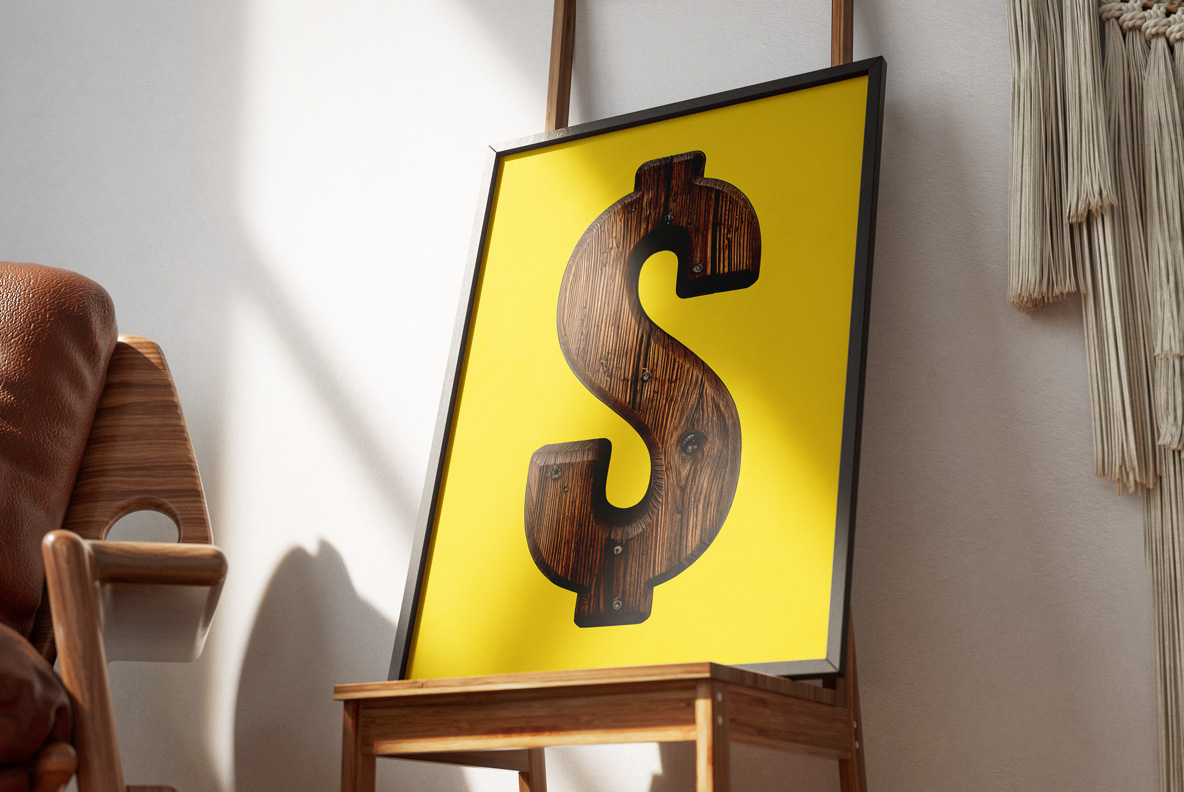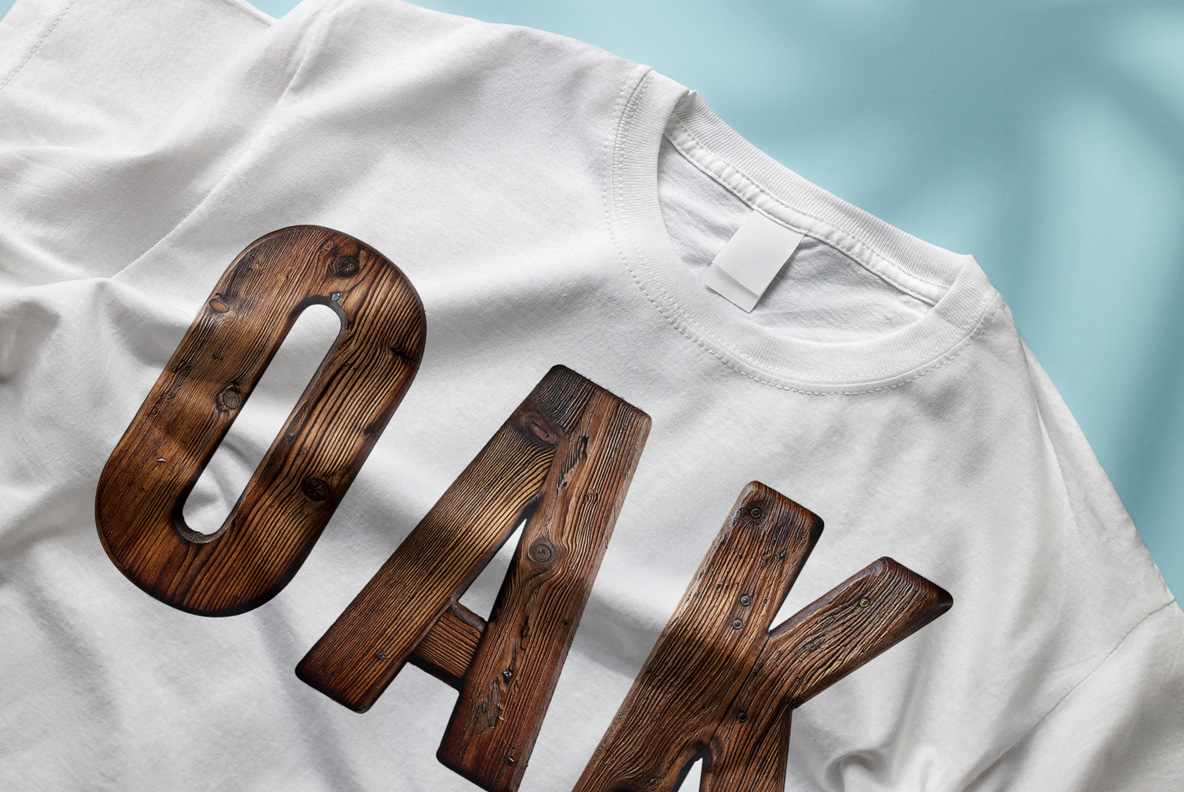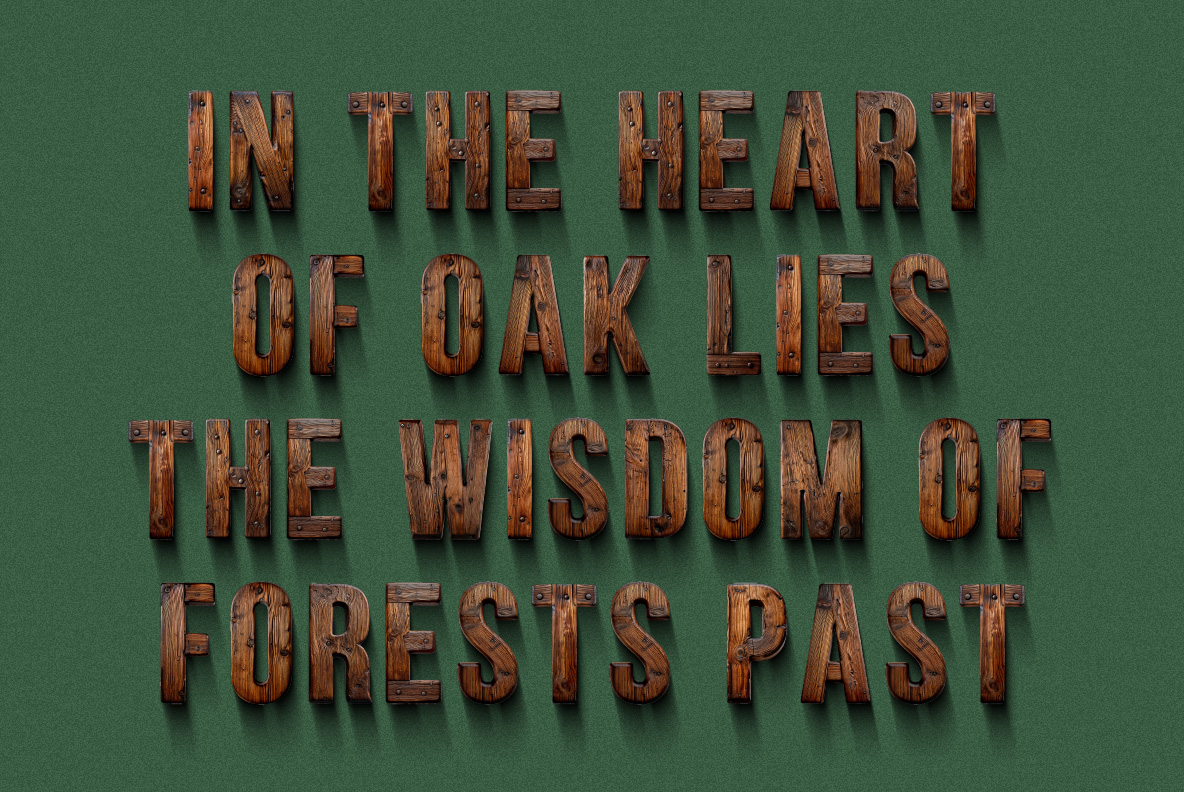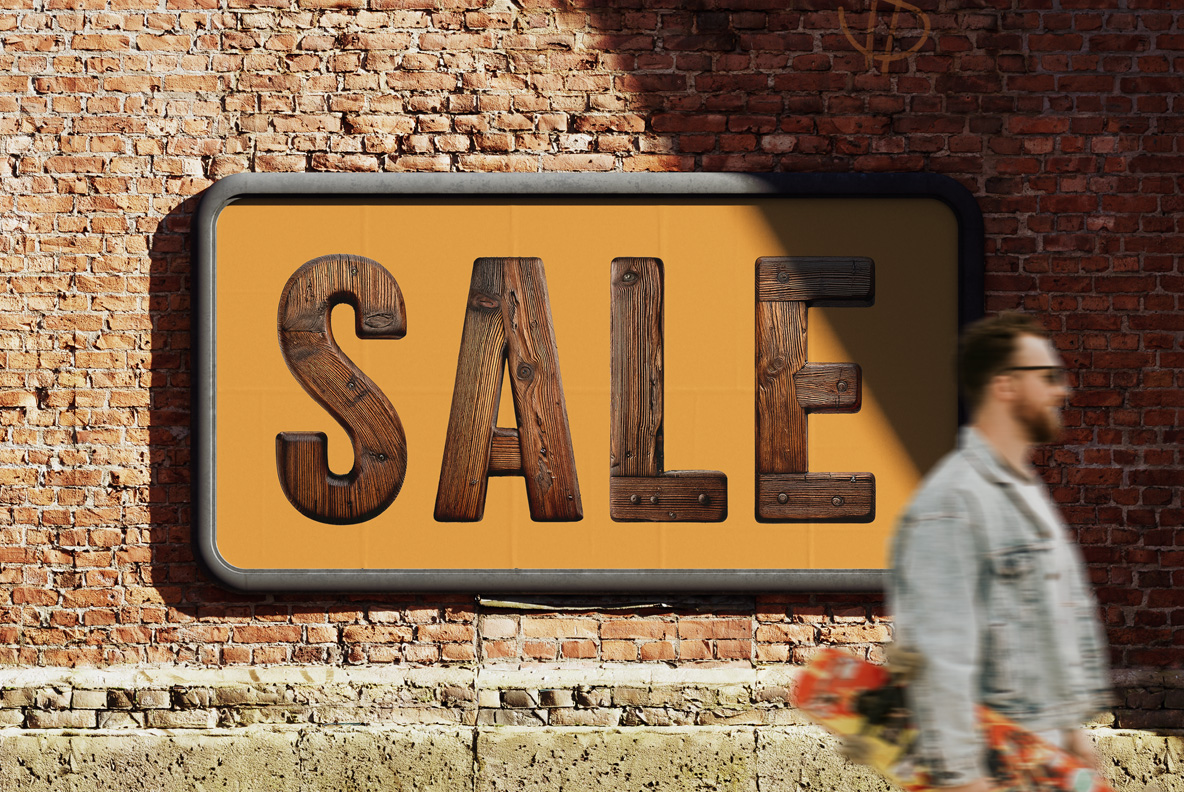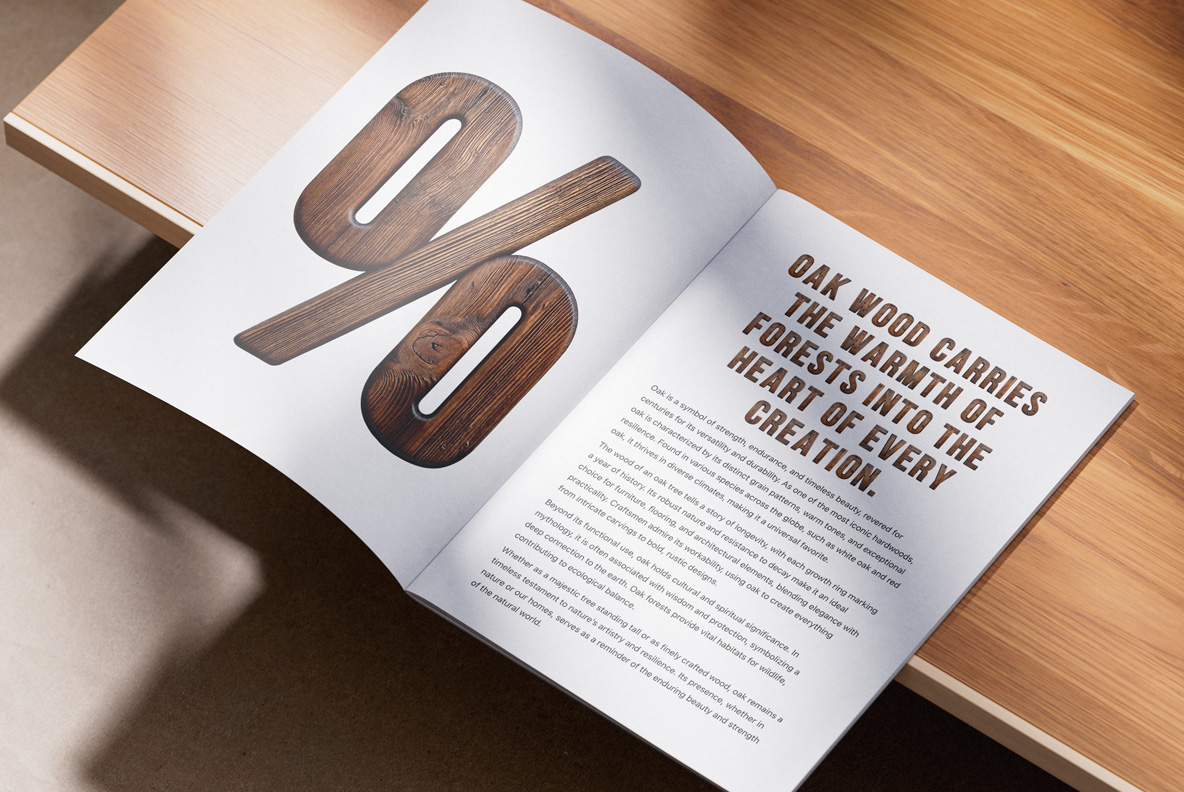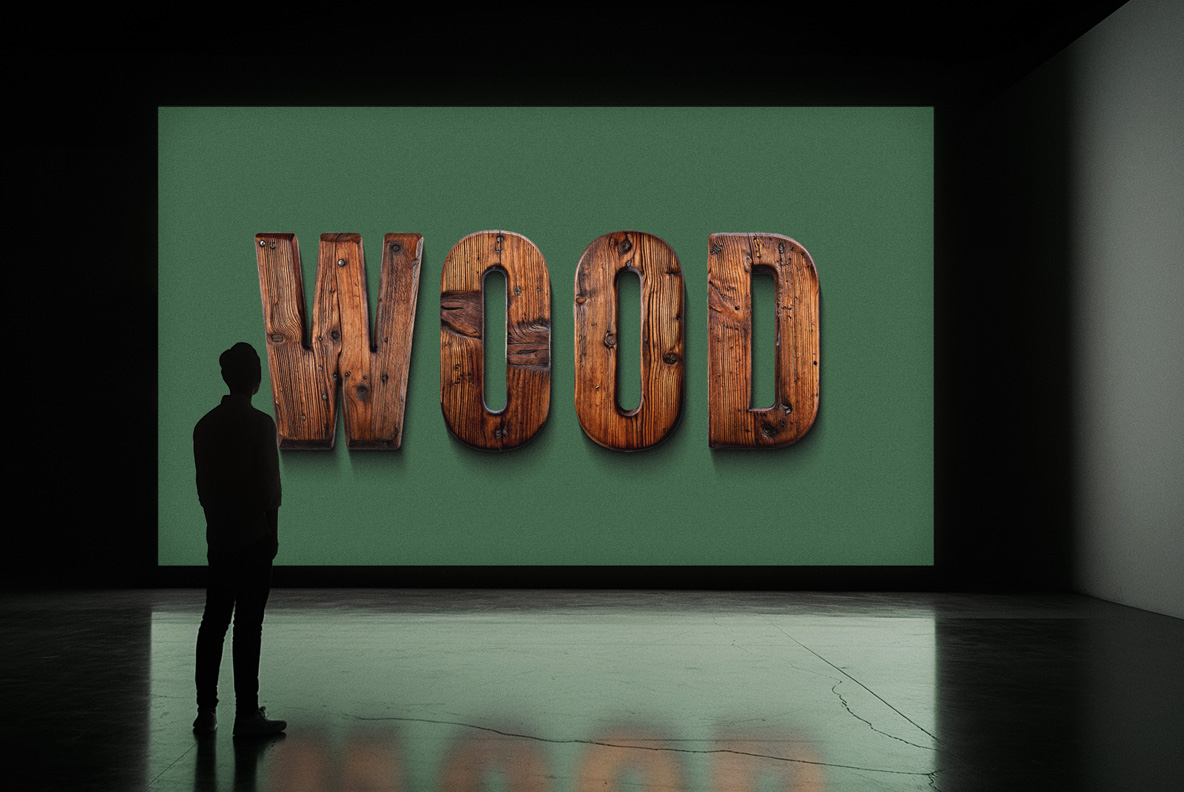
Oakwood Font. Realistic Oak Grain for Rustic Display Typography
Oakwood Font shapes weathered timber into a sturdy display alphabet filled with grain, knots, worn edges, and warm brown tones. It brings natural character to outdoor branding, packaging, restaurant signs, heritage projects, posters, and editorial graphics. The letters look carefully carved rather than digitally polished—and they arrive without covering your desk in sawdust.
When the Grain Becomes Part of the Letter
Oakwood Font builds every character from richly aged timber. Visible rings, knots, small cracks, and uneven color make the alphabet feel collected from a carpenter’s workshop rather than generated by a filter. The substantial shapes remain easy to recognize, while each surface carries its own natural variation. It has the confidence of solid oak and, fortunately, none of the splinters.
Rustic Typography Beyond the Log Cabin
Use Oakwood Font for outdoor brands, craft food packaging, restaurant signage, garden products, heritage events, book covers, adventure posters, and editorial titles. Its warm brown palette pairs naturally with cream, forest green, charcoal, and muted red. Clean supporting type keeps the composition contemporary instead of turning it into a souvenir shop. Explore more timber, bark, branches, and carved surfaces in our Wooden Fonts collection.
Animated Oakwood Font letters built from aged oak planks with visible grain, knots and metal fasteners
Give the Timber Enough Space to Speak
Oakwood Font works best in short, prominent phrases where the texture can be appreciated. Let the letters occupy generous space and avoid adding artificial wood effects—the real grain is already doing the useful work. A restrained layout can feel premium and architectural; rough paper and natural photography push it toward a more handmade mood. For a drier, more weathered interpretation of timber lettering, compare it with Dry Wood Font. Oakwood is the polished old table; Dry Wood is the fence that has stories.
Oakwood Font word FONT made from dark oak planks on a green OpenType product cover
Oakwood Font uppercase alphabet, numbers and punctuation made from aged timber on black
Oakwood Font word OAK printed in dark wooden letters across a white T-shirt
Oakwood Font quote In the Heart of Oak Lies the Wisdom of Forests Past on a green background
Oakwood Font word SALE displayed in timber letters on a yellow billboard fixed to a brick wall
Oakwood Font magazine spread with wooden percent symbol and text about oak carrying forest warmth
Oakwood Font at sign and ampersand built from aged oak boards with visible grain and nails
Oakwood Font word WOOD projected in large timber letters inside a dark contemporary gallery
Oakwood Font dollar symbol made from dark timber on a framed yellow interior poster
Oakwood Font letters ABCD and numbers 1234 made from aged timber on transparent background